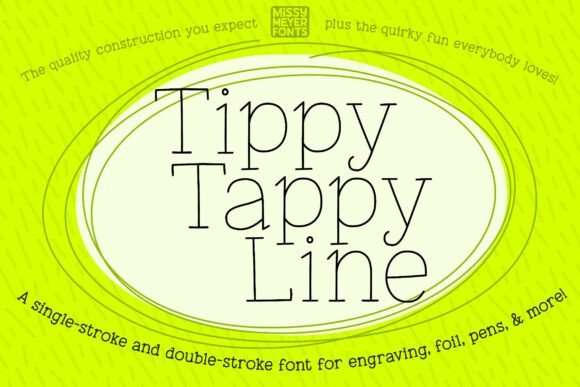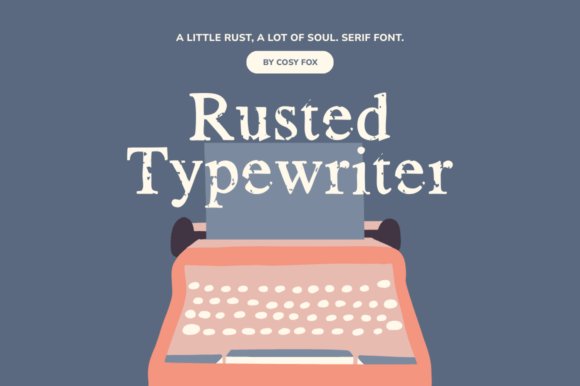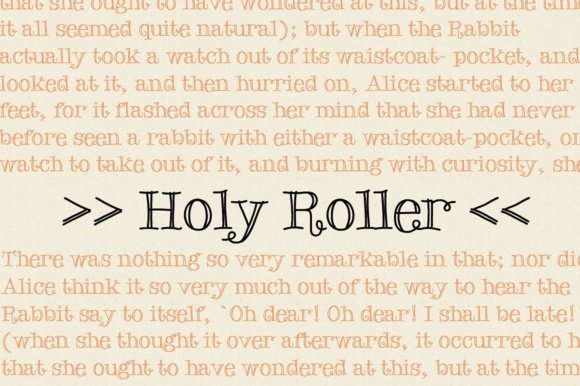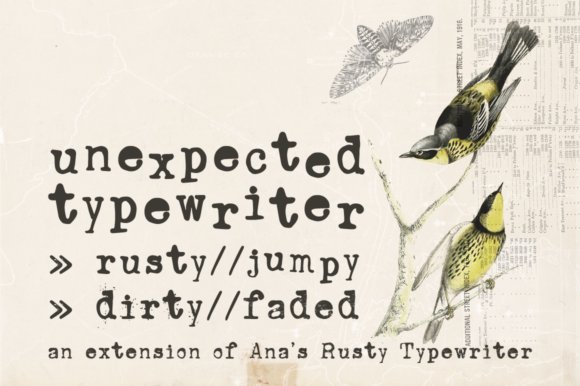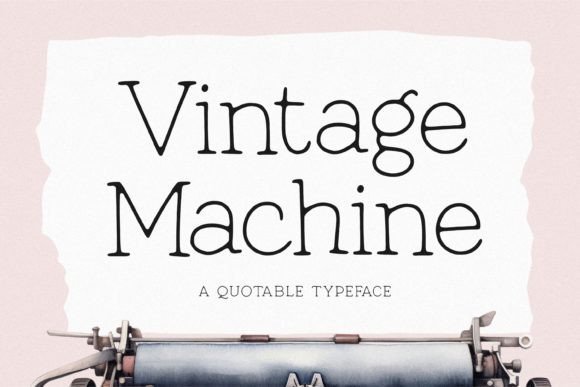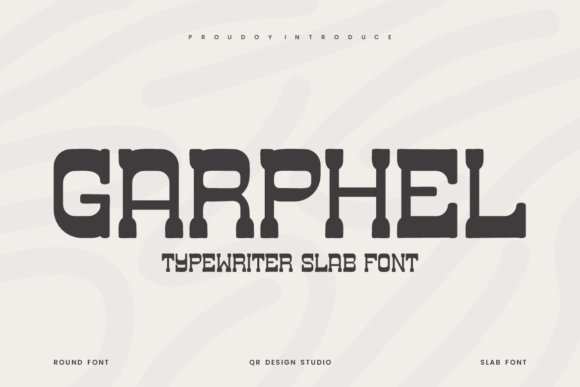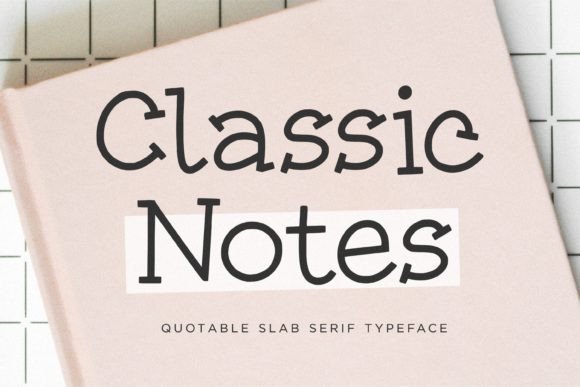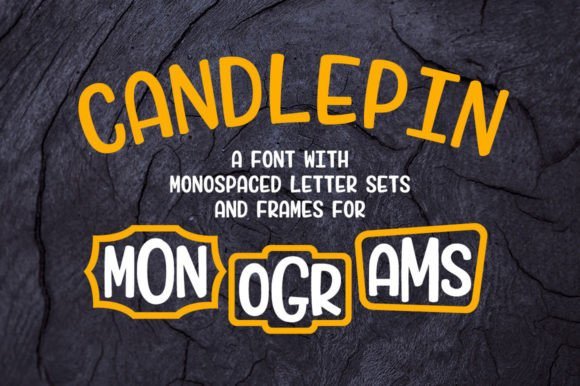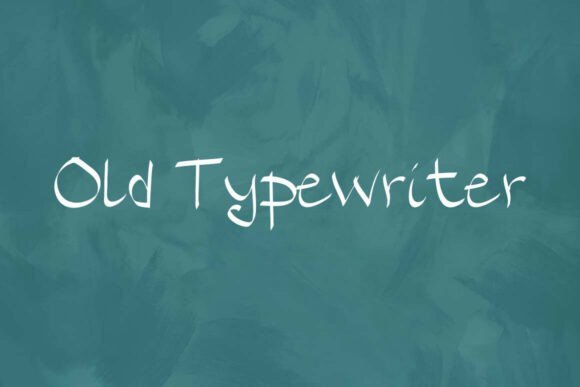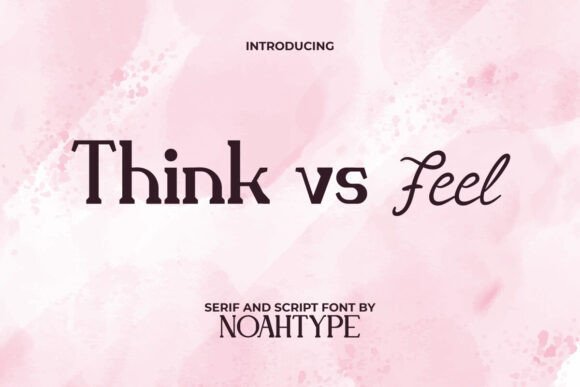
65 Ultimate Typewriter Fonts for Vintage Book Covers 2026
Typewriter Fonts bring an unmistakable retro tone to printed and digital covers. This roundup lists 65 options that suit vintage book covers, from crisp monospaced styles to worn, ink-smeared designs.
Each entry includes style notes, licensing tips, and suggested pairings so you can match a typewriter-style look to your cover art or layout. Try combining a bold slab or monospaced headline with a light serif for readable body copy.
1. Friary Pro Font
Friary Pro Font – Friary Pro is a minimalist sans serif built around clarity: narrow strokes, generous counters, and a subtle geometric skeleton that keeps text readable at tiny sizes and striking on large signage. Though primarily a sans, it pairs exceptionally well with Typewriter Fonts when a layout needs a mechanical, humanist contrast; use it for headlines that require restraint without stiffness. Its weight range and careful kerning let you fine-tune emphasis from captions to billboards.
The family’s open numerals and neutral italics make it a solid choice for UI, editorial grids, and brand identity work; webfont delivery and good hinting preserve forms on low-resolution screens. Designers will value its predictable metrics and consistent rhythm, which simplify typesetting and pairing with monospaced or textured display faces.
My Recommendation: I reach for Friary Pro when a project calls for clean, unobtrusive typography that still needs personality-especially when pairing with textured or typewriter-inspired headers. Its restrained shapes keep copy legible across print and screens while giving designers control over emphasis. Ideal for magazines, minimalist branding, and poster systems where contrast rather than ornament drives the voice.
2. Tippy Tappy Line Font
Tippy Tappy Line Font – Tippy Tappy Line reduces each glyph to a single continuous stroke, making it ideal for stylus-based tools, engraving bits, and drawing machines that do not render filled letterforms. The hand-drawn irregularities read as playful and nostalgic, giving handcrafted projects-from greeting cards to personalized jewelry-a charming, slightly imperfect typewriter-inspired look.
My Recommendation: I use Tippy Tappy Line on laser-engraved gifts and hand-scored boards where a delicate, drawn line is the goal. The single-stroke option reduces toolpath length and produces clean, consistent scores, while the SVG fallback avoids software headaches. It’s a go-to for makers crafting one-off keepsakes and small-batch personalized goods.
3. Rusted Typewriter Font
Rusted Typewriter Font – Rusted Typewriter applies vector erosion to a classic serif skeleton, simulating the worn edges and ink loss of long-used metal type. The distressed terminals and textured fills create an authentic aged feel that works well on posters, labels, and merchandise where historic or handcrafted character is desired.
Because the weathering is vector-based, the texture scales cleanly for large signage or small tags without introducing pixel blur, and the included symbols and hand-crafted alternates help build convincing old-school lockups. Pair it with a clean sans for tonal contrast or use it alone to give packaging and editorial spreads a tactile, stamped personality.
My Recommendation: I pick Rusted Typewriter when a design needs a weathered, tactile voice-think craft beer labels, zines, and retro posters. The vector erosion keeps detail crisp at print sizes, so it translates well from apparel to storefront signage. It’s perfect for projects that benefit from a lived-in, analogue aesthetic rather than polished precision.
4. Holy Roller Font
Holy Roller Font – Holy Roller blends hand-drawn charm with the mechanical quirks of old machinery, producing letterforms that feel loose, warm, and slightly askew. It sits comfortably among Typewriter Fonts while keeping a playful personality: rounded terminals, sporadic ink specks, and subtle baseline shifts make each line feel handwritten but legible.
This display face works best where friendliness matters – short headlines, greeting cards, indie zines, and packaging that needs character rather than polish. Pair it with a spare geometric sans to keep layouts readable while Holy Roller supplies the personality and visual interest.
My Recommendation: I reach for Holy Roller when a project needs an approachable, handmade voice without becoming twee. Its imperfections read as human, which is great for posters, labels, or editorial spots that benefit from a handcrafted touch. I typically offset it with a neutral sans so the warmth reads clearly at a glance.
My Recommendation: I’d reach for Inabitavek when a project needs the convincing patina of an old press – think book covers, retro branding, or film posters set in the mid‑20th century. The ink‑scarred texture reads as authentic in display sizes and gives designs emotional weight without becoming illegible. It’s particularly useful when you want type that reads like a found object rather than a polished digital font.
47. Silly Typewriter Font